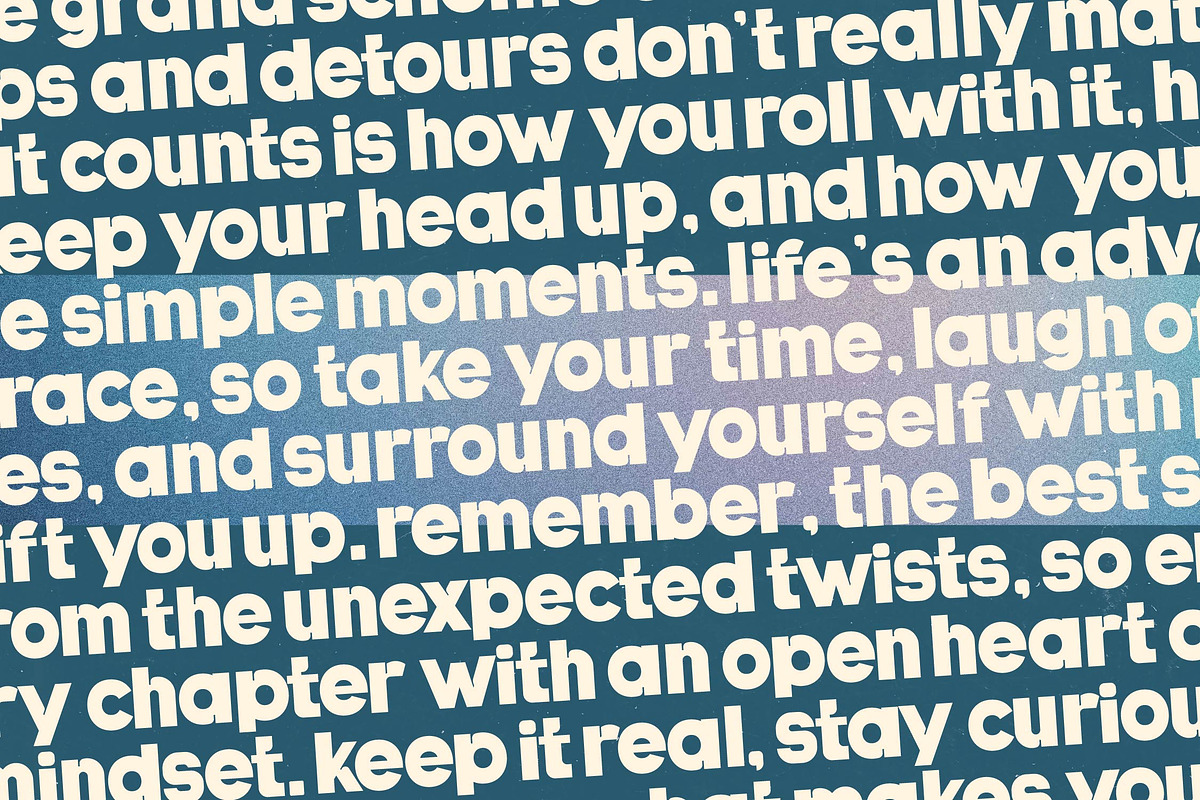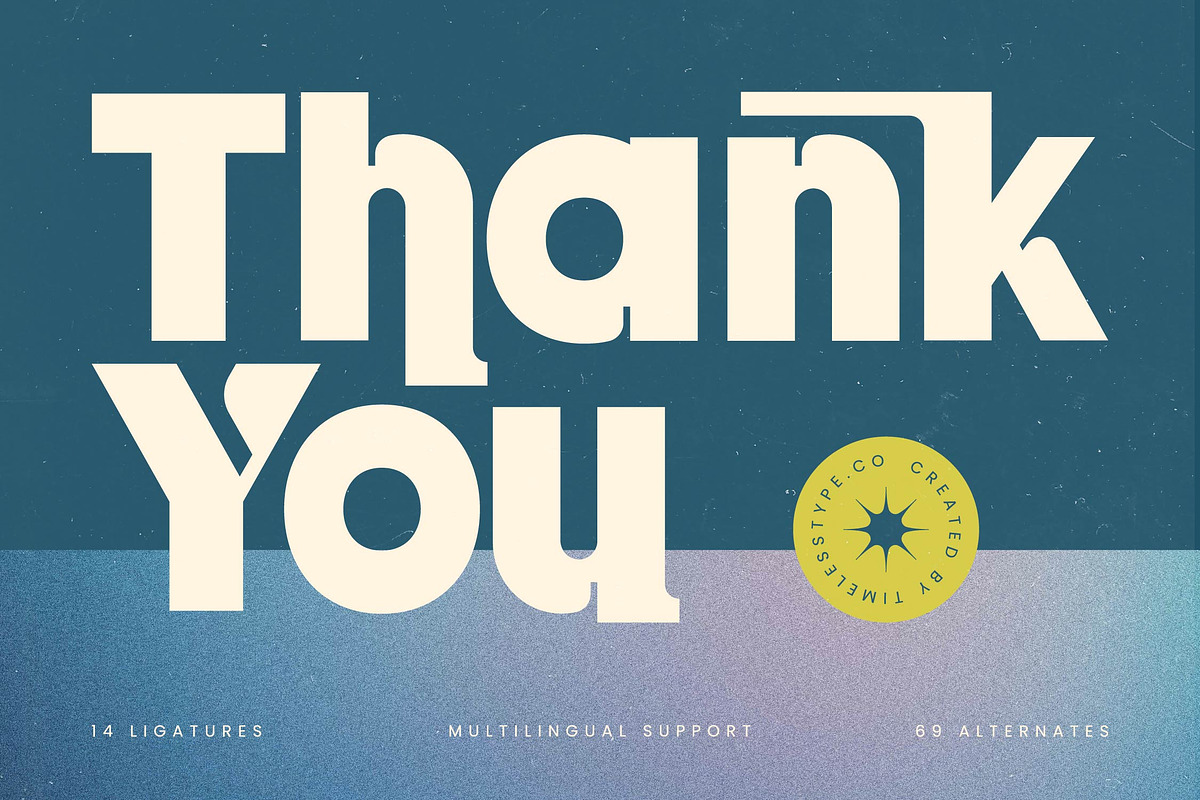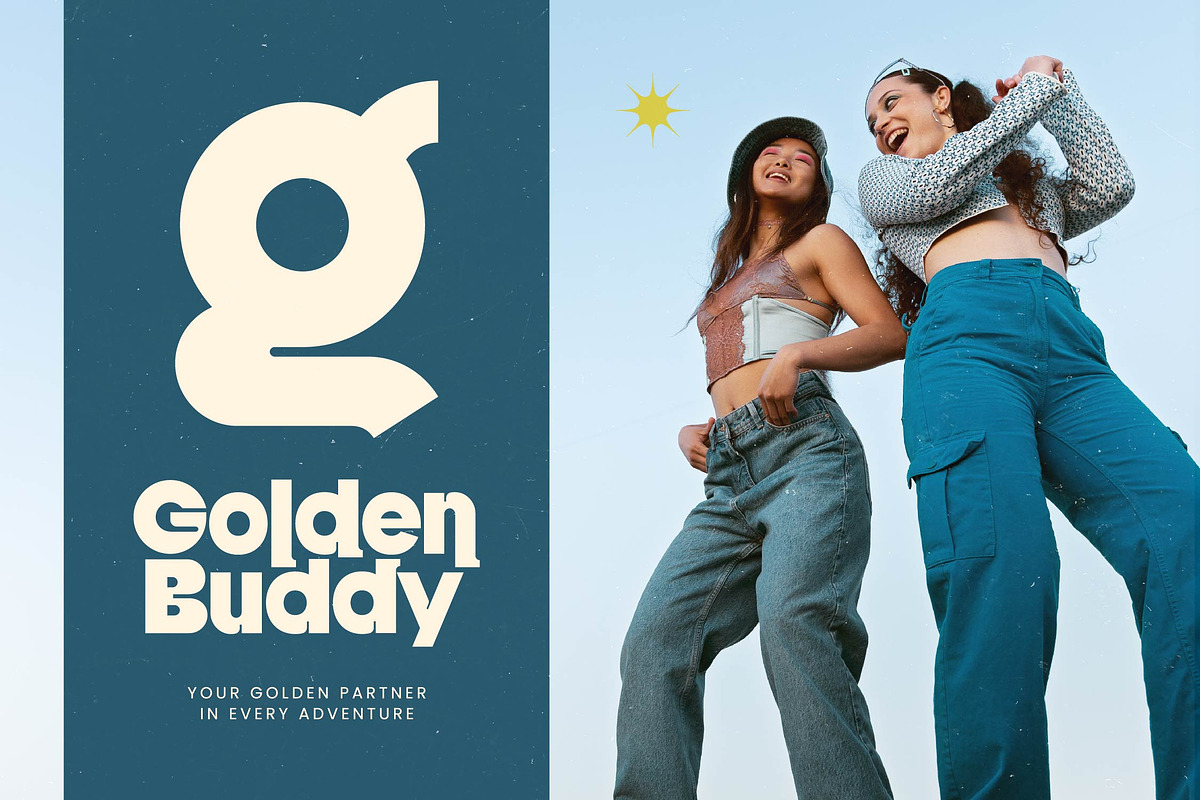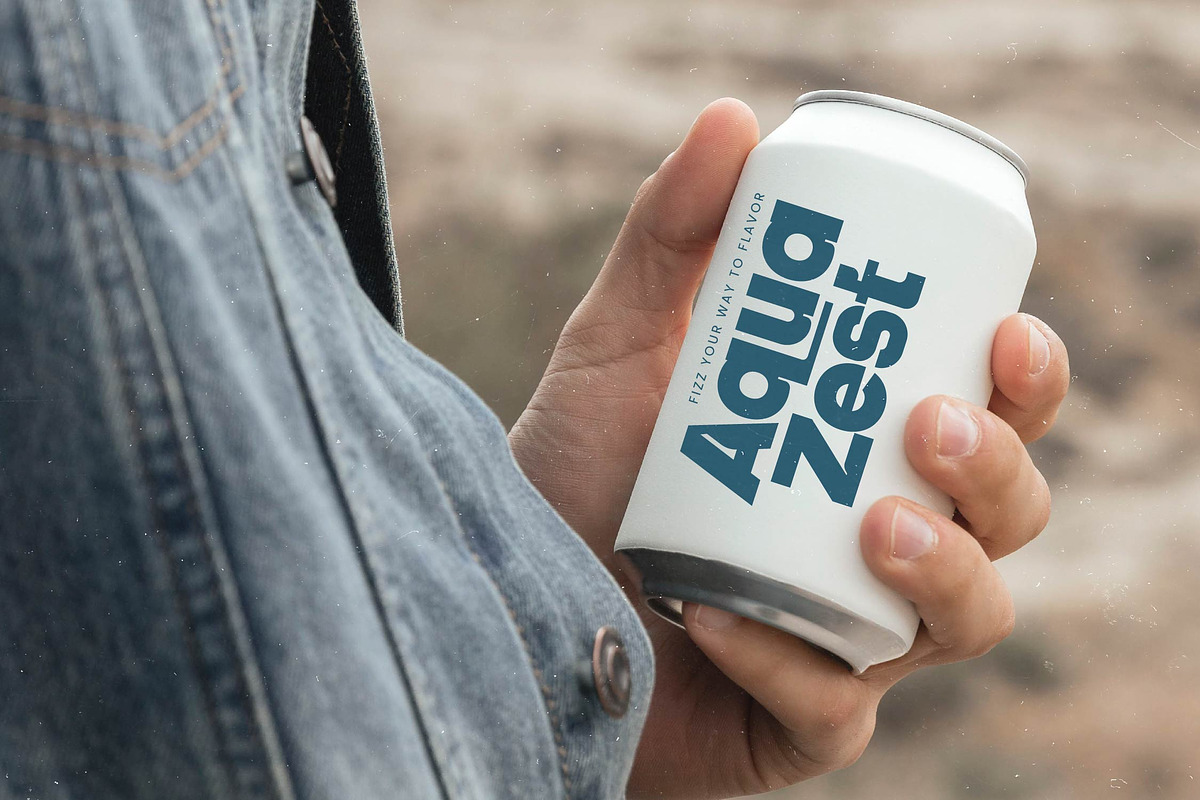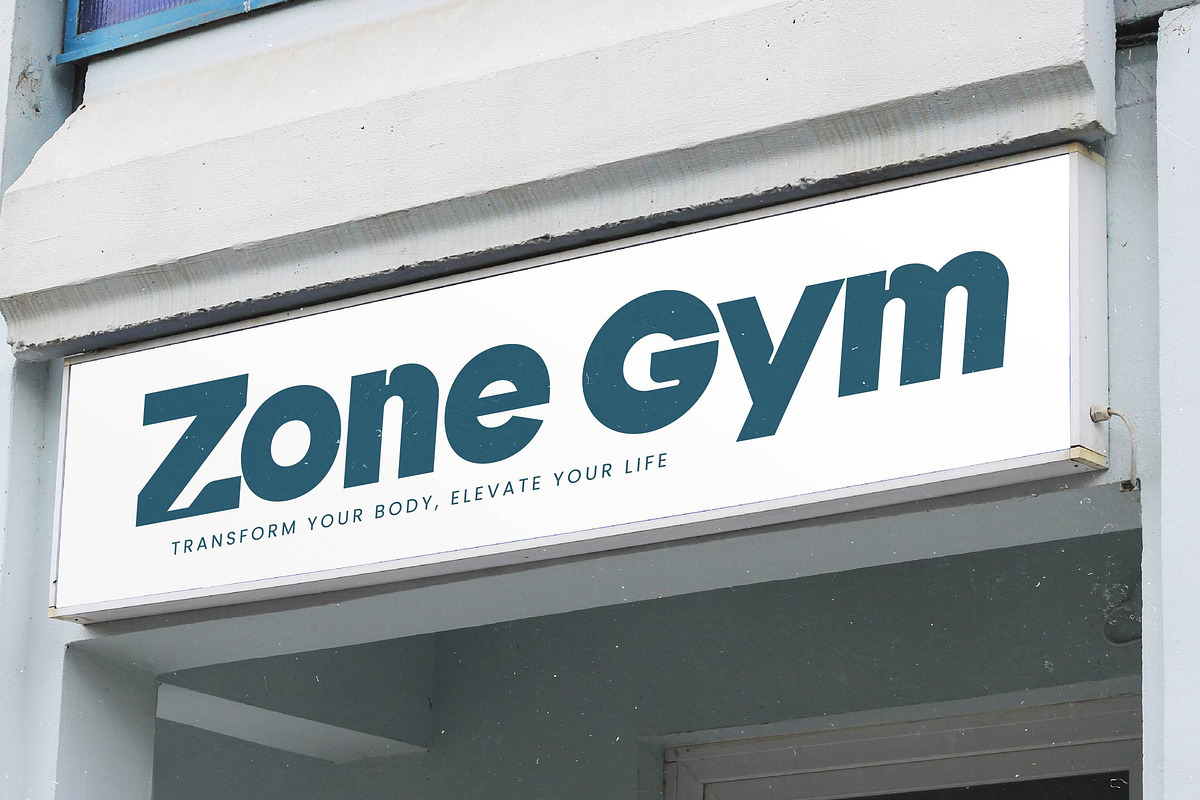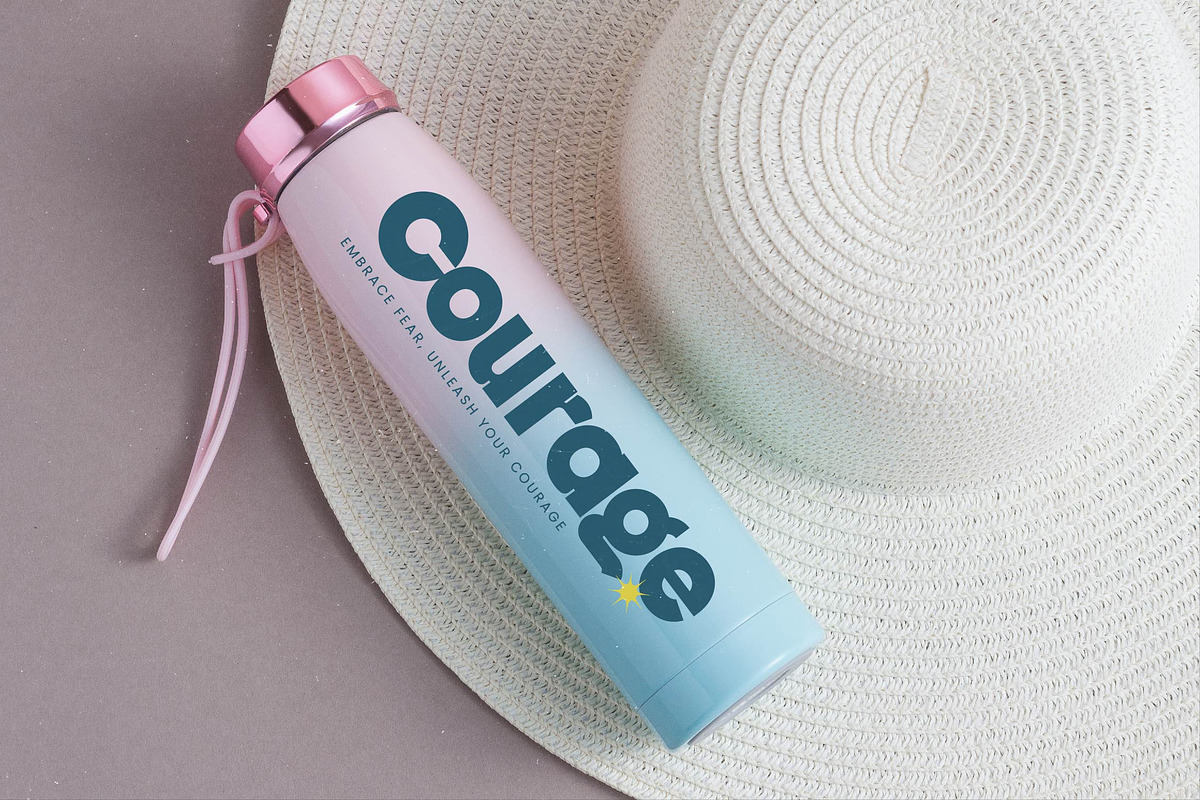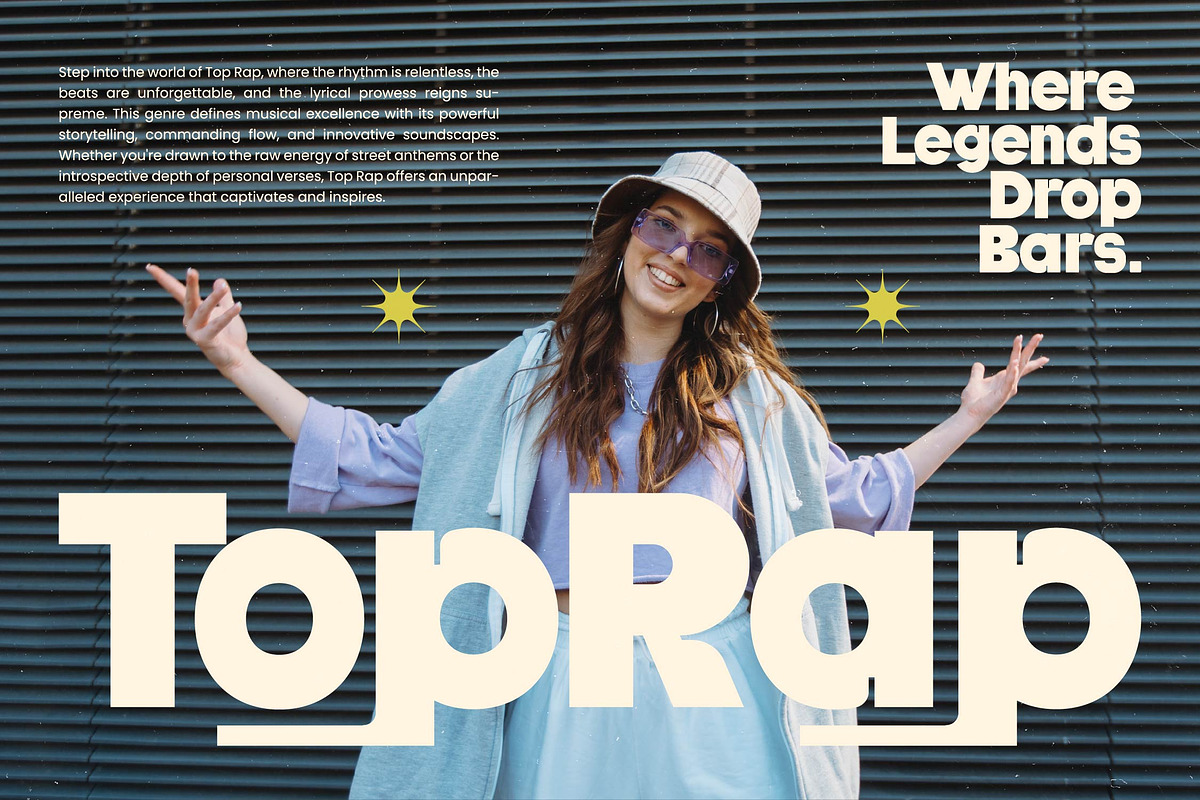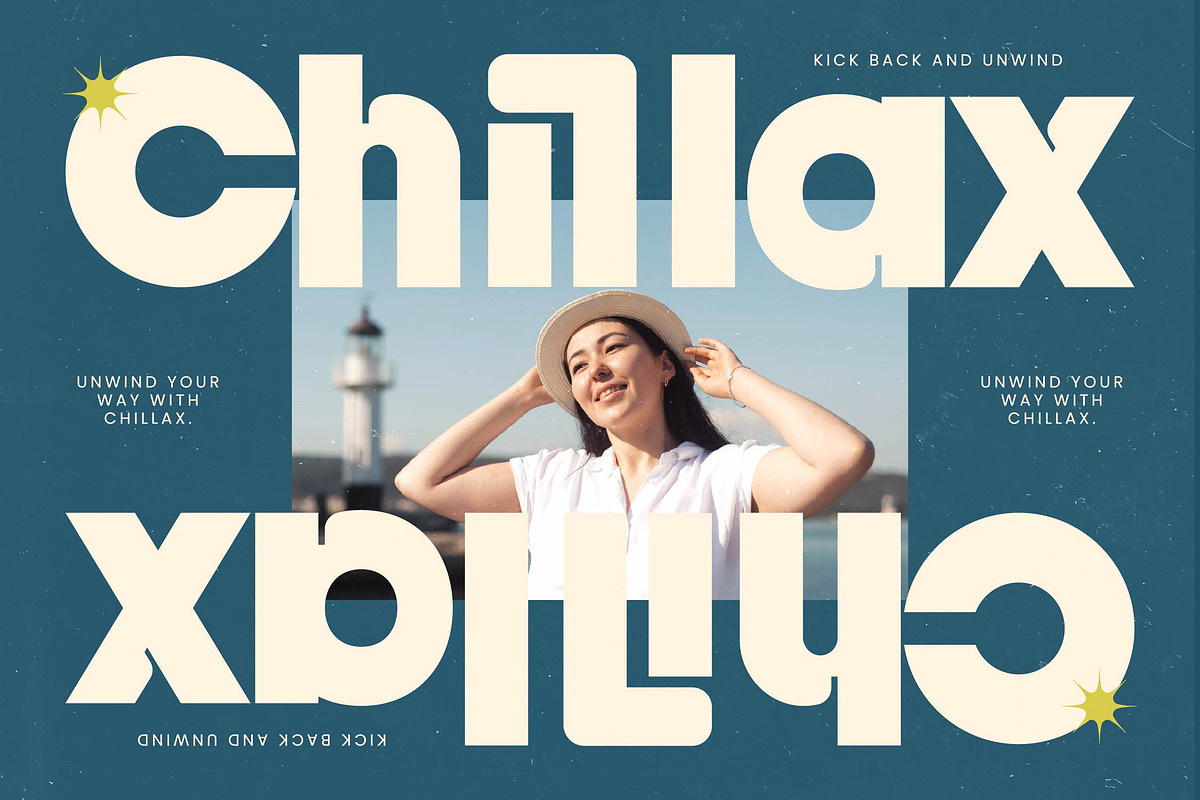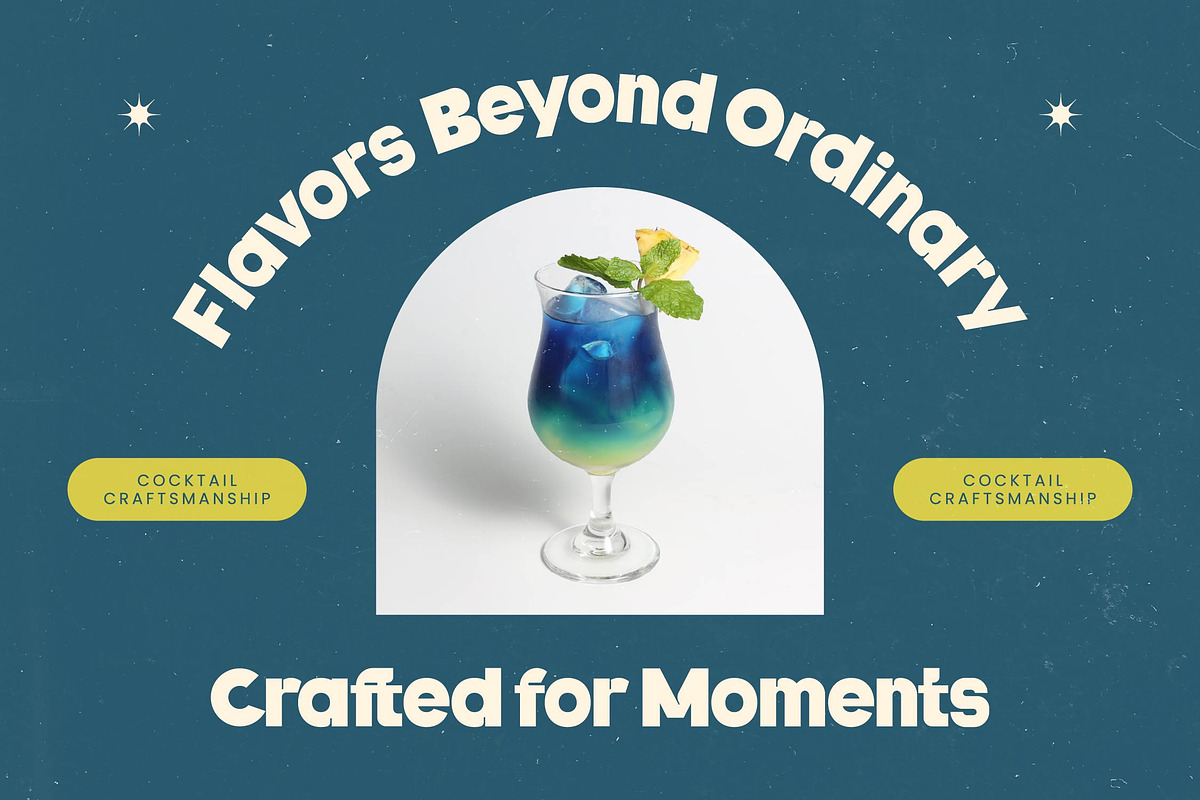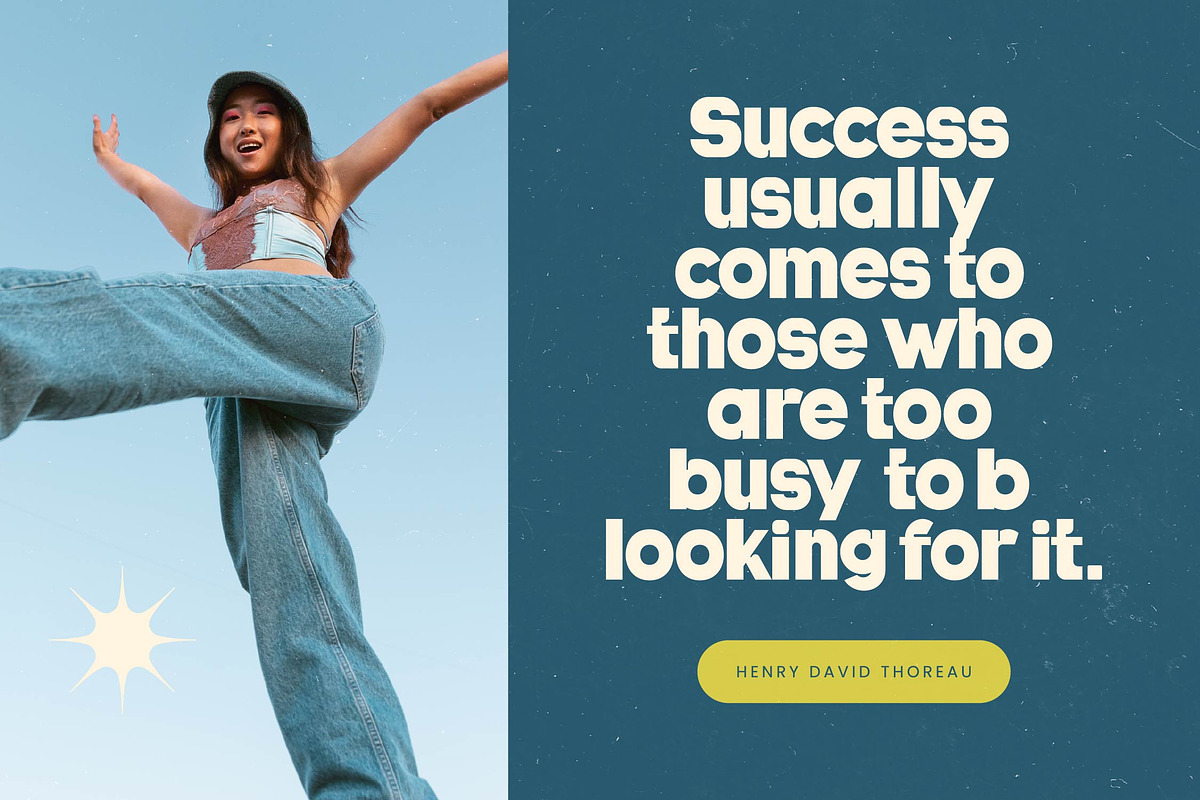
Shout Back Bold Display Sans
Shout Back makes a resounding statement, blending unyielding strength with a sophisticated edge that demands every ounce of the viewer's attention. This typeface isn't just a font; it's a bold vocalization for designers who refuse to blend into the background.
Drawing inspiration from the punchy visual language of 70s editorial layouts and contemporary streetwear, this font captures a unique intersection of nostalgia and futuristic energy. Its heavy stems and razor-sharp cuts evoke the feeling of high-end urban boutiques and the grainy texture of classic vinyl covers.
Every curve of this modern serif display delivers a massive branding impact, making it the ultimate editorial font for those seeking luxury typography with a high-contrast serif flair. It functions as a powerful alternative to traditional sans designs, offering a distinct visual rhythm that defines the modern era.
As the modern serif trend evolves toward more expressive and thick letterforms, this typeface positions itself at the forefront of character-driven typography. It perfectly aligns with current editorial display fonts that prioritize unique identities over generic legibility, giving your projects a loud voice in a crowded digital landscape.
From high-impact logo design to sleek packaging, this font is built to carry the weight of a brand's visual identity. It excels in branding for fashion labels, creates unforgettable editorial spreads, and provides a bold twist for wedding stationery that wants to stand out from the traditional crowd.
This comprehensive kit includes a massive library of 14 ligatures and 69 alternates to customize every word with unique flair. It features full multilingual support and a wide range of international characters, ensuring your message reaches a global audience while utilizing decorative swashes for a truly bespoke look.
- Ligature 14 Alternate 69